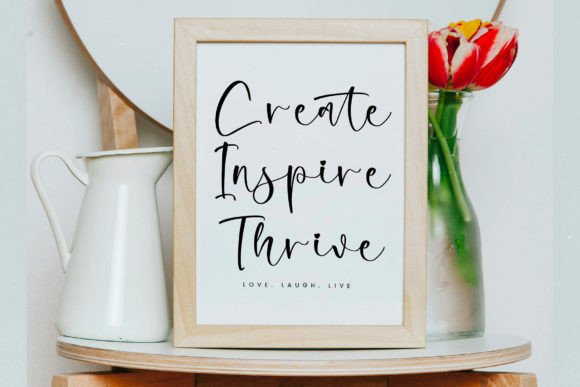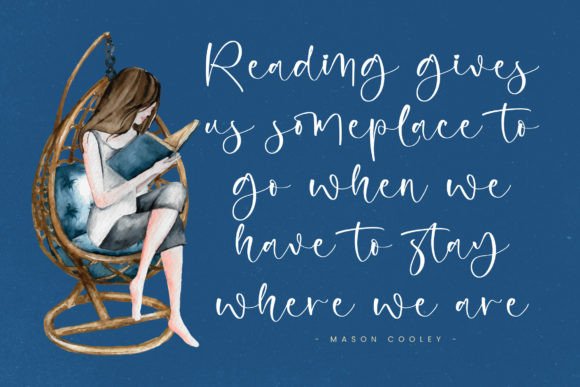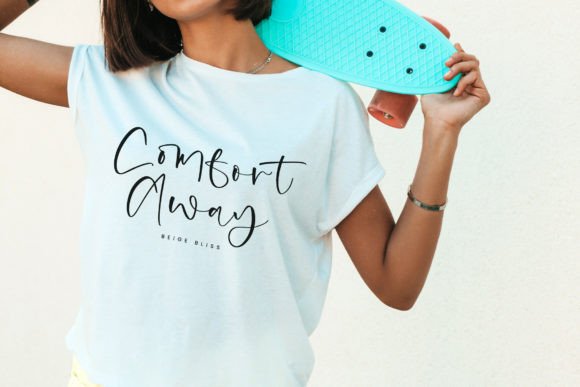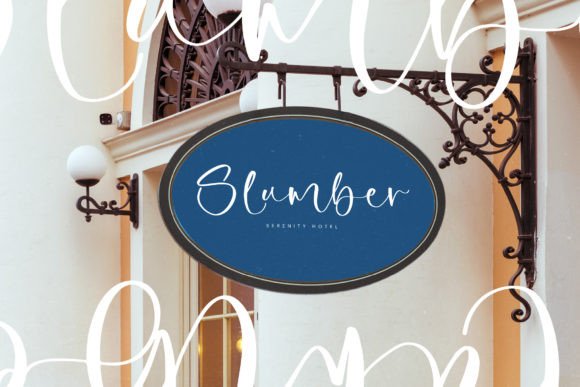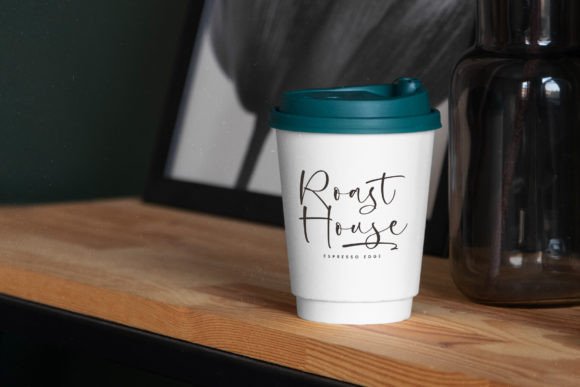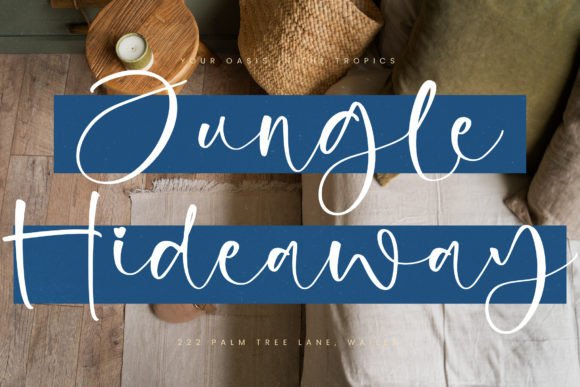
Introducing Blossom Daisy Font: Elevate Your Designs with Elegance and Personality
In the world of typography, a font can make or break the aesthetic of a design project. For designers and crafters seeking a modern, charming, and elegant handwritten font, Blossom Daisy is an exceptional choice. This beautiful font exudes sophistication and personality, making it perfect for upscale invitations, personal branding, and chic editorial designs.
The Characteristics of Blossom Daisy Font
Blossom Daisy is a modern handwritten font that boasts graceful, flowing strokes and a refined character. Its elegant appearance is both sophisticated and inviting, making it suitable for a wide range of design applications. The font’s unique charm lies in its ability to convey warmth and personality, adding a touch of whimsy to any project.
Key Features of Blossom Daisy Font
- Modern and Charming: Blossom Daisy is a contemporary handwritten font that adds a touch of charm and sophistication to any design.
- Elegant and Refined: The font’s flowing strokes and refined character make it perfect for upscale designs, such as luxury brand logos, high-end invitations, and editorial content.
- Handwritten with Personality: Blossom Daisy has a unique, handwritten feel that injects personality into any project, making it stand out from more traditional fonts.
- Versatile: This font is suitable for a wide range of design applications, from digital projects to print materials.
Uses for Blossom Daisy Font
Blossom Daisy is an incredibly versatile font that can be used in various design projects, including:
- Upscale Invitations: Create beautiful, high-end invitations for weddings, parties, and other special events.
- Personal Branding: Use Blossom Daisy to create a sophisticated and elegant brand identity that reflects your personality and style.
- Editorial Designs: Add a touch of elegance to your editorial content, such as magazine articles, blog posts, and social media graphics.
- Digital Projects: Use Blossom Daisy in digital projects, such as website designs, email marketing campaigns, and social media graphics.
Why Choose Blossom Daisy Font?
With so many fonts available, why choose Blossom Daisy? Here are a few compelling reasons:
- Unique and Memorable: Blossom Daisy is a distinctive font that will help your designs stand out from the crowd.
- Elegant and Sophisticated: The font’s refined character and flowing strokes make it perfect for upscale designs.
- Easy to Read: Despite its elegant appearance, Blossom Daisy is easy to read, making it suitable for body text and headlines.
Tips for Using Blossom Daisy Font
To get the most out of Blossom Daisy, here are a few tips:
- Use it as a Headline Font: Blossom Daisy is perfect for headlines and titles, where its elegant appearance can shine.
- Pair it with a Sans-Serif Font: For body text, pair Blossom Daisy with a clean sans-serif font to create a beautiful contrast.
- Experiment with Colors: Blossom Daisy looks stunning in a range of colors, from soft pastels to rich jewel tones.
Blossom Daisy Font is a modern, charming, and elegant handwritten font that is perfect for designers and crafters seeking to elevate their designs. With its flowing strokes, refined character, and sophisticated appearance, this font is suitable for a wide range of design applications. Whether you’re creating upscale invitations, personal branding, or editorial designs, Blossom Daisy is an excellent choice. So why not give it a try and see how it can transform your designs?